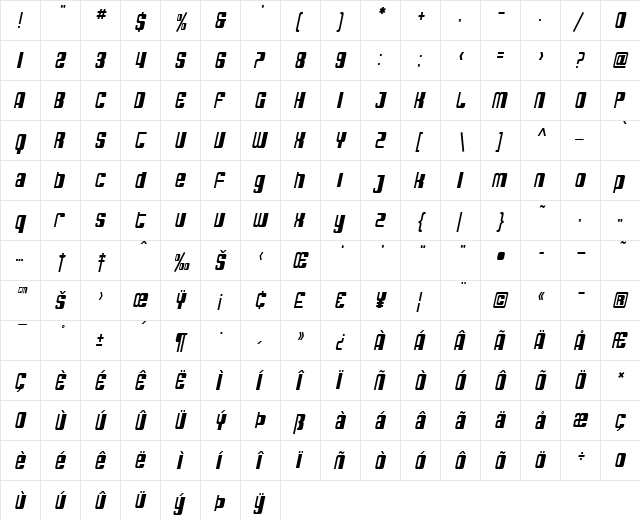
SF DecoTechno Condensed Oblique
Design Context for SF DecoTechno Condensed Typeface
SF DecoTechno Condensed has a distinctly futuristic character, with geometric precision and clean angles that feel at home in technology, gaming, and sci-fi contexts. The slanted form adds forward momentum and visual energy. The condensed width makes it efficient for tight spaces without sacrificing legibility.
Pro Tip: Try SF DecoTechno Condensed with generous letter-spacing in UI labels and navigation — the geometric forms benefit from room to breathe.